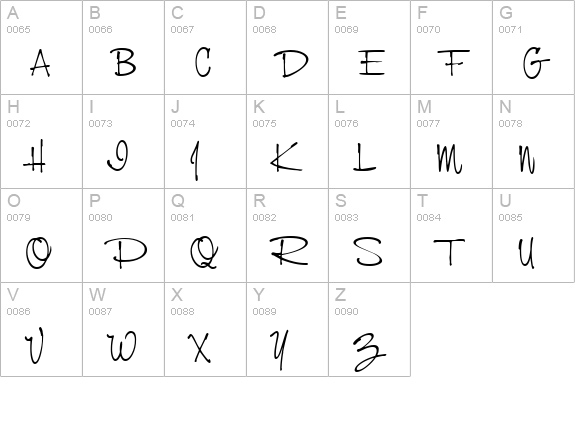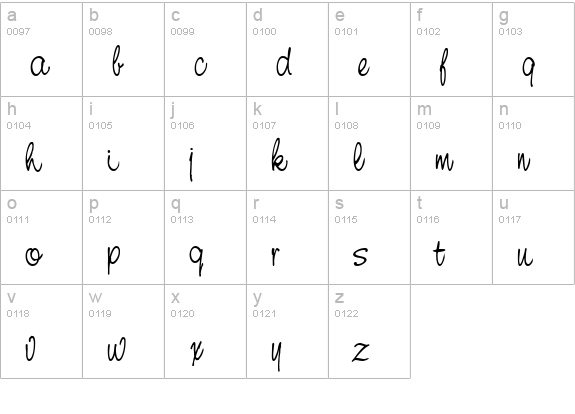
NevilleScript Regular is the standard, neutral variant in the NevilleScript typeface family \xE2\x80\x94 well suited to general body text, paragraphs, and standard typographic work.
NevilleScript Regular font is a beautiful and elegant typeface that exudes sophistication and charm. With its graceful and flowing strokes, this font is perfect for adding a touch of class to any design project. Whether you're creating invitations, greeting cards, or branding materials, NevilleScript Regular is sure to make a lasting impression. The best part? NevilleScript Regular font is completely free to download at FontsMarket.com! Take advantage of this amazing offer and elevate your designs with this exquisite typeface. Don't miss out on the opportunity to add a touch of elegance to your creations without breaking the bank. Download NevilleScript Regular font today and unleash your creativity!